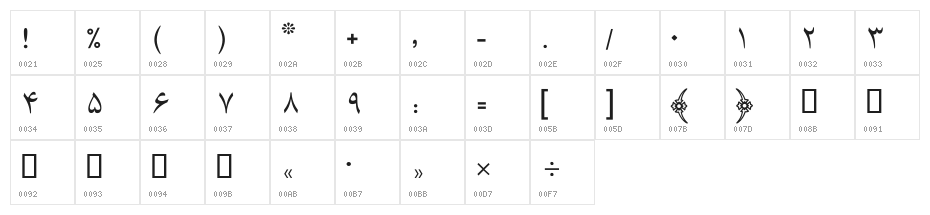
Haafez Font
گالری فانت فارسی پژوهش آريانا - only compatible with Farsi and Arabic
| Anwendungsfall | Logos, Invitations, Artistic projects |
| Vorgeschlagene Projekte | Ideal for projects that require a touch of elegance and tradition, such as wedding invitations, formal event programs, or cultural publications. |